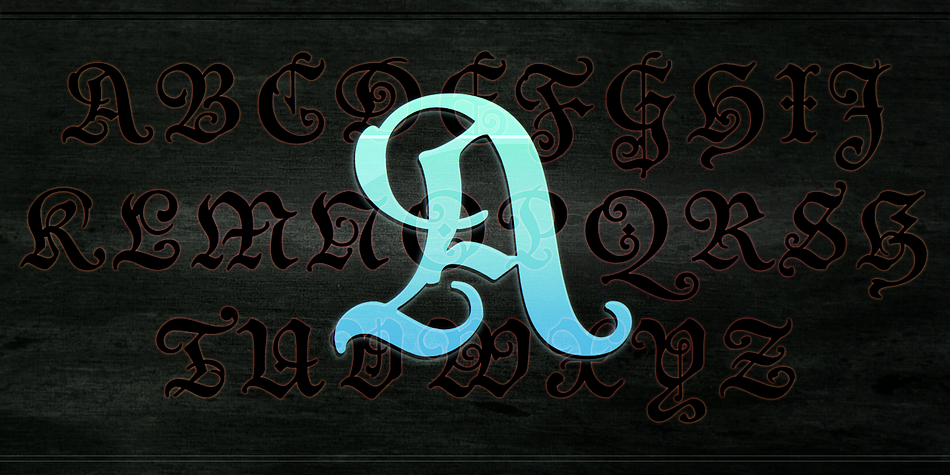
Albermont
Designed by Andreas Stötzner, Albermont is a blackletter font published by Andreas Stötzner.
Albermont is a fantastic new theatrical typeface for captivating text performance. Its innovation is a very special blend of uncial-inspired lowercase letters and blackletter-like capitals.
In tone and proportions it is a kin design of the Abendschroth fonts (which you may also want to take a look at …).
Albermont gives the punch to headlines and text paragraphs in fairytale books, witchcraft hand-outs, piracy manuals or Wave Gothic promotion materials. It lends furious fantasy to every story and devastating delicacy to every word. Get your hands on this treasure before others do so.